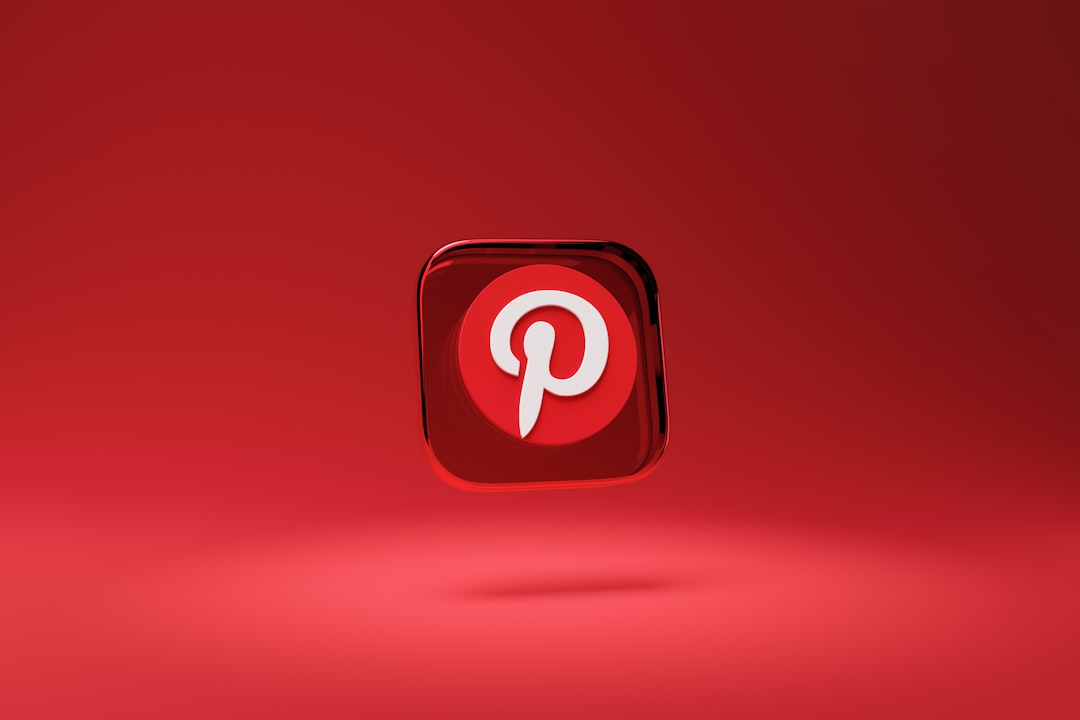
What Font Does Pinterest Use? (2026)
What Font Does Pinterest Use?
Quick answerThe Pinterest font is a custom brand typeface used across the wordmark and product, with the distinctive “P” mark inside the red pin. The app and web UI also fall back on system fonts (San Francisco on iOS, Roboto on Android). Both the brand face and the script-leaning wordmark are proprietary; for a similar clean, friendly look, use a free geometric sans like Inter or Proxima Nova (paid) for the closest match.
The Pinterest font pairs a custom, friendly brand typeface with the unmistakable red “P” pin logo — an identity built to feel warm, optimistic, and effortless to read on a visual platform. The wordmark lettering is bespoke, and the interface leans on the brand face plus native system fonts for fast, legible rendering. Below we break down the logo, the UI, and the free alternatives. For more like this, start with our hub on famous brand fonts.
What font is the Pinterest logo?
The “Pinterest” wordmark is set in a custom brand typeface — a clean, rounded sans with a slightly script-influenced, friendly character that softens the geometric base. The capital “P” doubles as the icon, rendered in white inside Pinterest’s signature red circular pin. The letterforms are bespoke and trademarked, refined in-house to feel approachable and contemporary rather than corporate. As with most platform logos, the wordmark is custom artwork rather than an off-the-shelf font you can download, so it is best described as a proprietary brand face.
What font does Pinterest use in its app and UI?
Across the app and website, Pinterest renders most of its interface in a custom brand sans for headings and key surfaces, with native system fonts handling much of the body text for performance. That means San Francisco on iOS, Roboto on Android, and the platform UI font on the web in many contexts. The result is a clean, neutral reading experience that keeps attention on the images — the Pins themselves — rather than the type. This pragmatic mix of a branded display face plus fast system fonts is standard practice for image-first platforms.
Why does Pinterest use these fonts?
Pinterest is a visual discovery platform, so its typography is deliberately quiet and friendly — it frames the imagery without competing with it. A clean geometric sans reads as modern and trustworthy, while the soft, slightly rounded details keep the brand feeling warm and human. Relying on system fonts for body text also makes the app feel native and load quickly on every device, which matters when users scroll endless image grids. The custom brand face gives Pinterest a recognizable voice in its logo and marketing. There is a practical reason image-first platforms behave this way: every extra web font a page must download adds load time, so reserving a custom face for headings and the logo while letting fast-loading system fonts carry the bulk of body text keeps the experience snappy. Pinterest’s slightly rounded, almost approachable letterforms also reinforce the brand’s positioning as a calm, inspiration-led space rather than a high-pressure feed. Our font licensing guide covers why platforms commission bespoke faces for branding.
Free fonts that look like the Pinterest font
You cannot use Pinterest’s bespoke face, but several free, modern sans-serifs capture the same clean, friendly feel. Match the role: a geometric sans for a wordmark or heading look, a humanist sans for readable body text.
Use case Pinterest uses Free / paid alternative
Logo / wordmark look Custom brand sans (rounded) Nunito Sans (free)
Headings / UI Custom brand sans Inter (free)
Closest geometric match Geometric brand sans Proxima Nova (paid)
Readable body System fonts Open Sans (free)
Inter is the best free all-rounder for a Pinterest-style interface — a humanist sans engineered for screens with a high x-height and superb legibility. Nunito Sans captures the softer, rounded warmth of the wordmark, and Open Sans handles neutral body text well. For the closest geometric likeness to Pinterest’s brand face, license Proxima Nova — flag it as paid, not free. See our deep dives on the Inter font and the Proxima Nova font.
How to recreate the Pinterest look
Pinterest’s identity is warm, clean, and image-led, so the type should stay light and friendly. For a Pinterest-style mark, set the wordmark in a soft geometric sans like Nunito Sans or licensed Proxima Nova, keeping letterforms rounded and well-spaced. For the interface, use a screen-first humanist sans such as Inter or Open Sans so the type frames imagery rather than competing with it. Anchor everything with Pinterest’s signature red, keep generous whitespace, and let the visuals lead. For more platform breakdowns, see our siblings on what font Reddit uses and what font Snapchat uses.
What font does Pinterest use in its logo?
Pinterest uses a custom, in-house brand typeface for its wordmark — a clean, rounded geometric sans with a friendly, slightly script-influenced character. The capital “P” doubles as the icon inside the red pin. The lettering is bespoke, trademarked artwork rather than a downloadable font.
What font does the Pinterest app use?
The Pinterest app uses its custom brand sans for headings and key surfaces, with native system fonts handling much of the body text: San Francisco on iOS and Roboto on Android. This keeps the interface fast, neutral, and focused on the imagery.
Can I download the Pinterest font?
No. Pinterest’s custom brand typeface and wordmark are proprietary, trademarked assets and are not available to download. Any “Pinterest font” on a free-font site is an unofficial imitation. For a similar look, use a free geometric sans like Inter or Nunito Sans.
What free font looks like Pinterest’s?
Inter is the closest free match for Pinterest’s UI, and Nunito Sans captures the rounded warmth of the wordmark. Both are free on Google Fonts for commercial use. For the closest geometric likeness to the brand face, license Proxima Nova (paid).
Is the Pinterest font Proxima Nova?
Pinterest’s brand face is custom, but it shares the clean, friendly geometric character of Proxima Nova, which is why that paid typeface is the closest commercial match. The exact wordmark is bespoke and trademarked, so license Proxima Nova for similar work rather than expecting an exact copy.